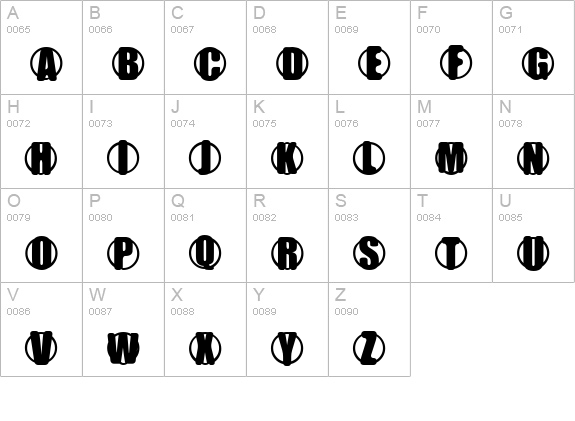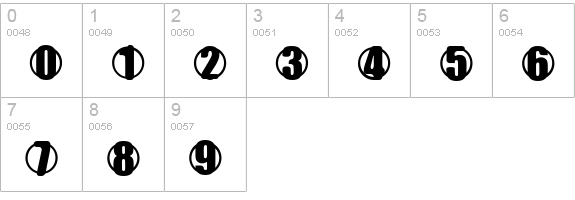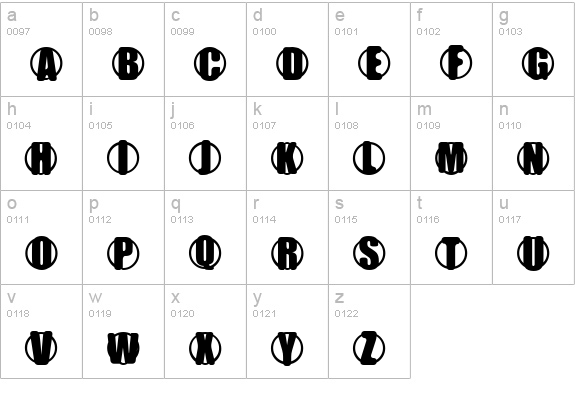
YChrome Prime Font Details
YChrome Prime is a modern and sophisticated font that exudes elegance and style. With its sleek lines and sharp edges, this font is perfect for creating eye-catching designs that demand attention. Whether you're designing a logo, website, or print materials, YChrome Prime will add a touch of sophistication to your project. What makes YChrome Prime even more appealing is that it is free to download at FontsMarket.com. This means that you can easily access this premium font without any cost, making it a budget-friendly option for all your design needs. Don't miss out on the opportunity to elevate your designs with YChrome Prime - download it for free today at FontsMarket.com!